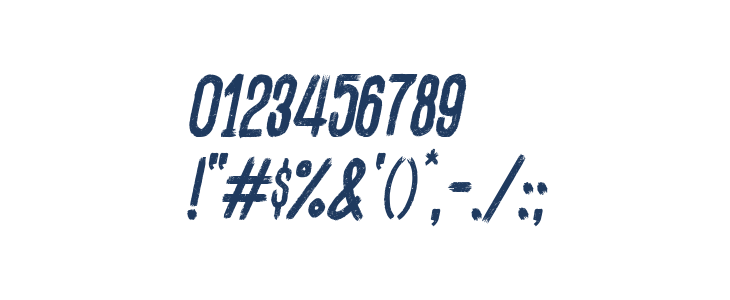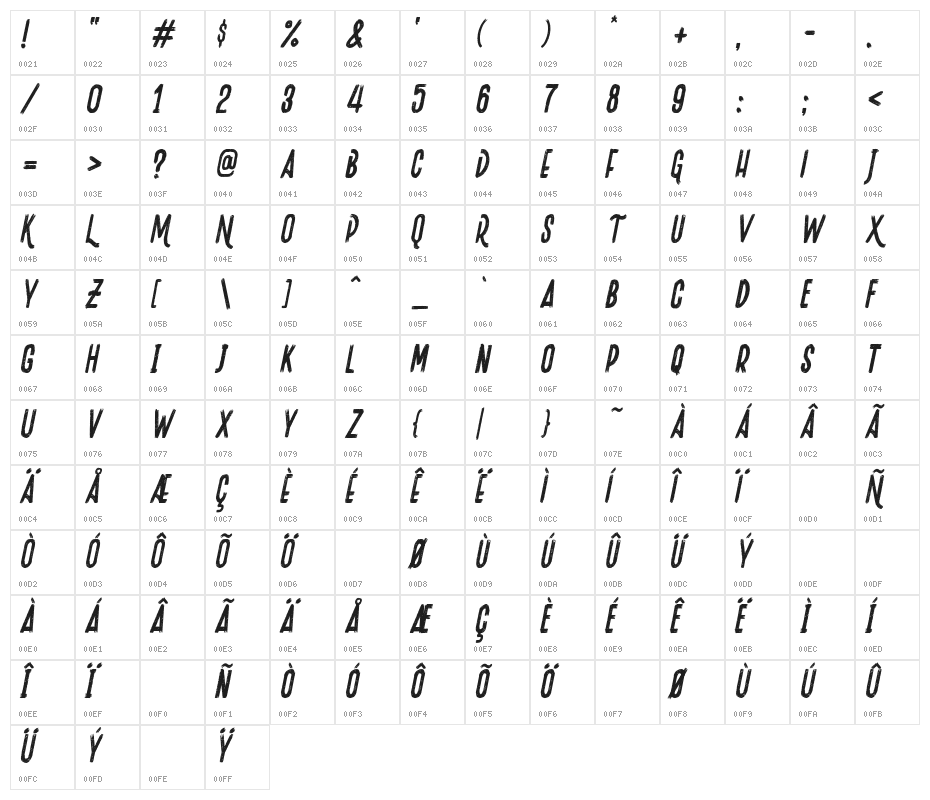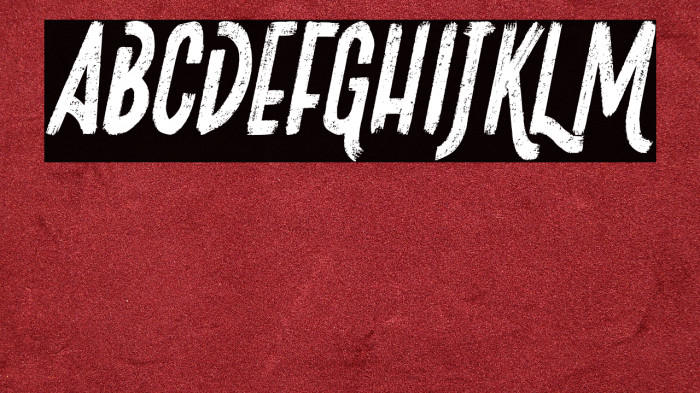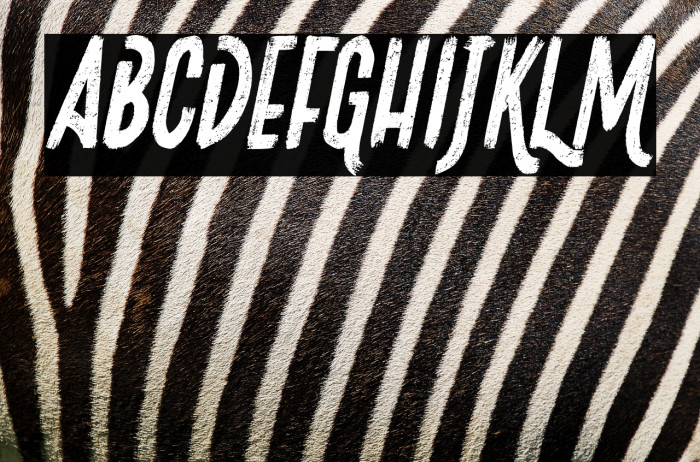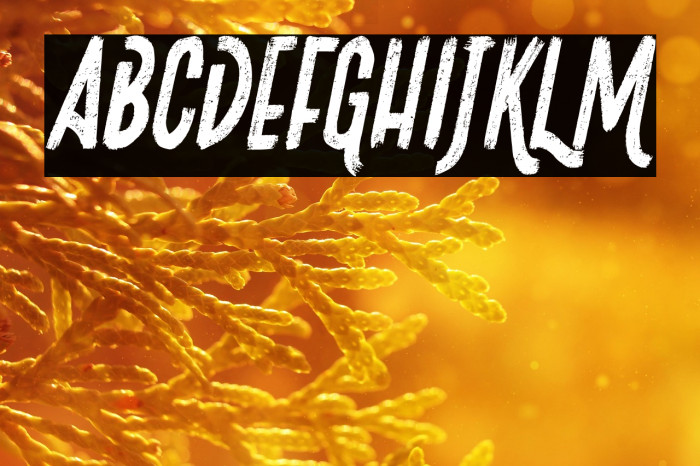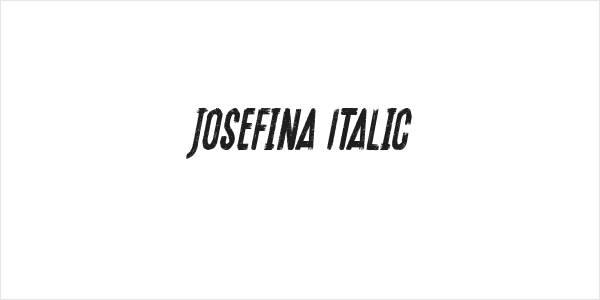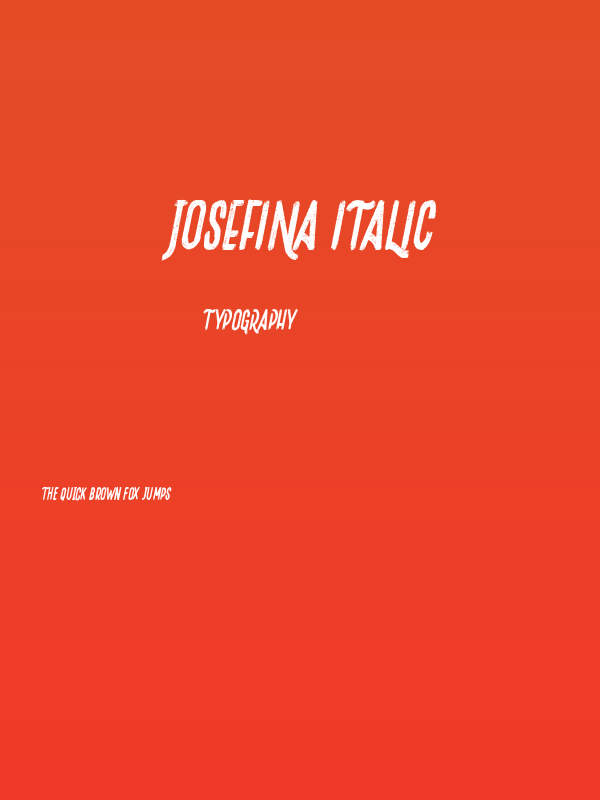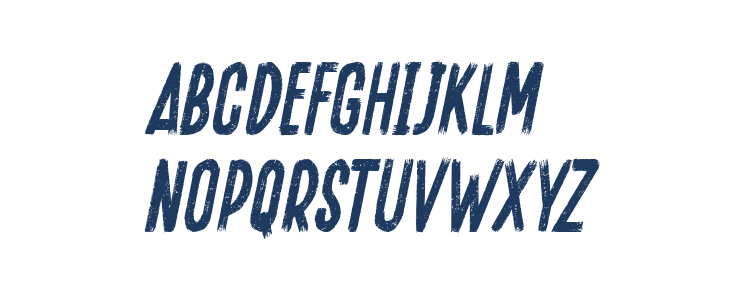
Josefina Italic Font
Josefina Italic Description
This font exhibits a dynamic and energetic style, characterized by its bold and italicized form. The letters are slightly slanted, adding a sense of motion and urgency. The strokes are thick and textured, giving a hand-painted or brushed appearance. This texture adds a rugged and informal feel, making it stand out in any design. The uppercase and lowercase letters maintain a consistent style, with numerals and special characters following suit. The overall impression is one of boldness and expressiveness, suitable for making a strong visual impact.
| Proposed Projects | Ideal for posters, branding, and advertising where a strong, dynamic presence is needed. |